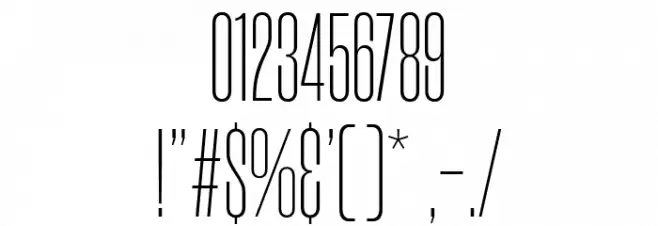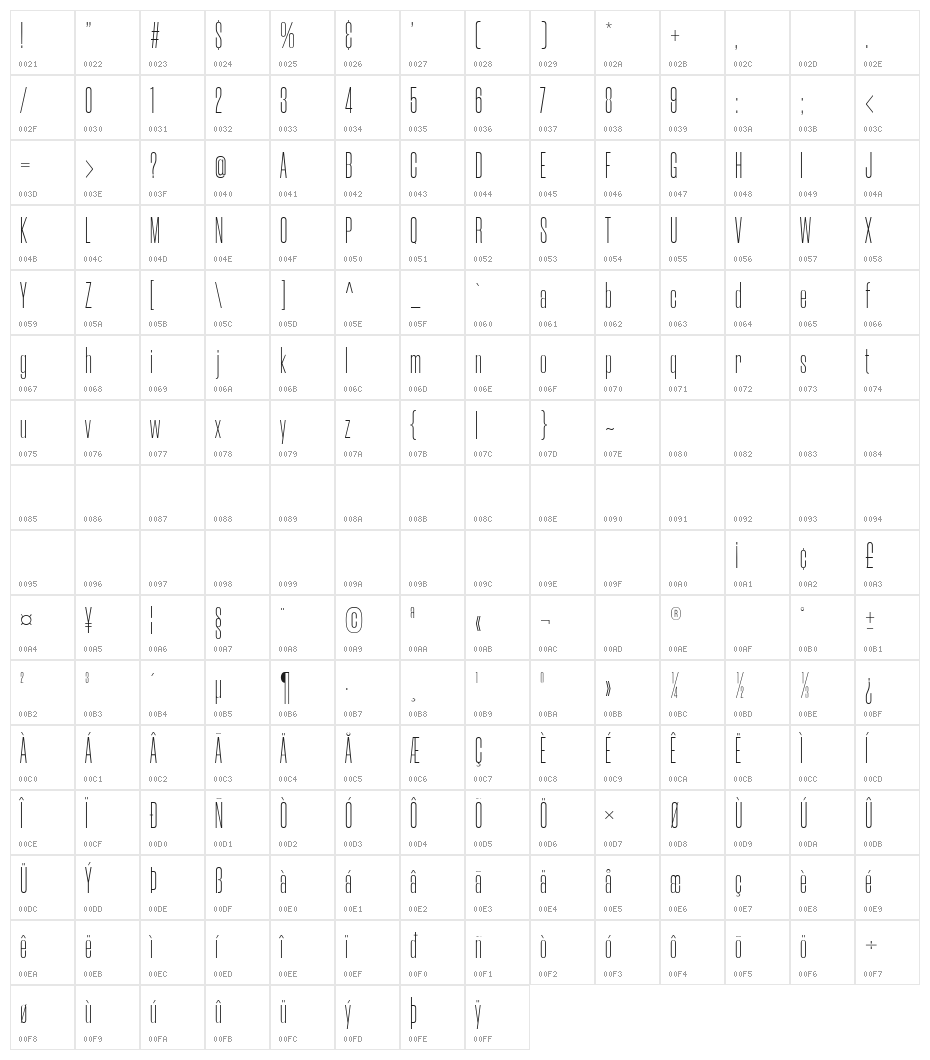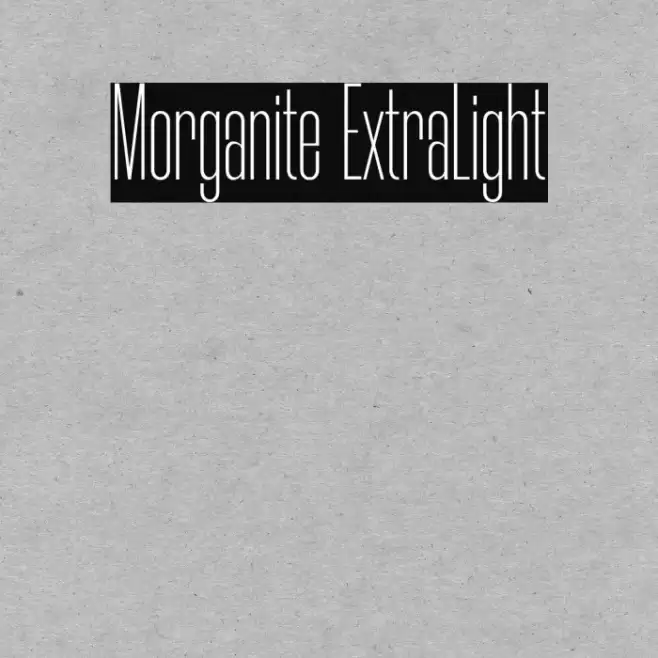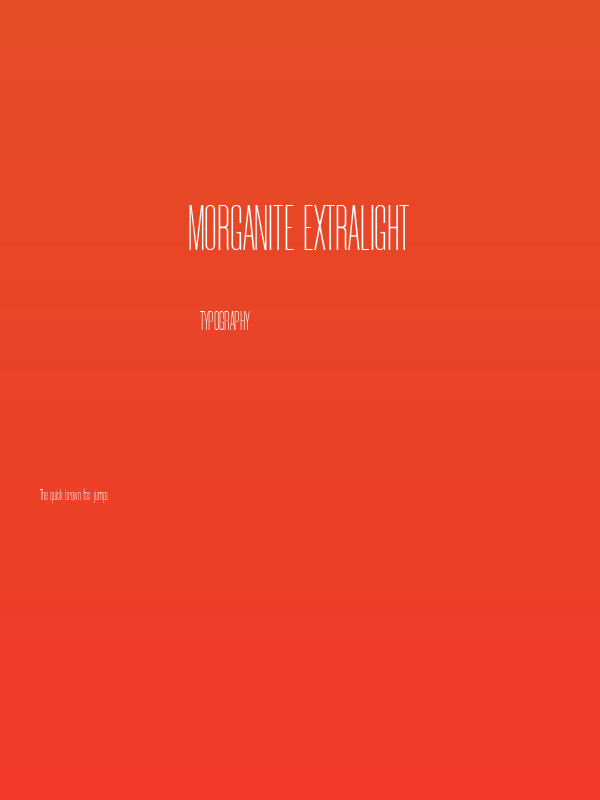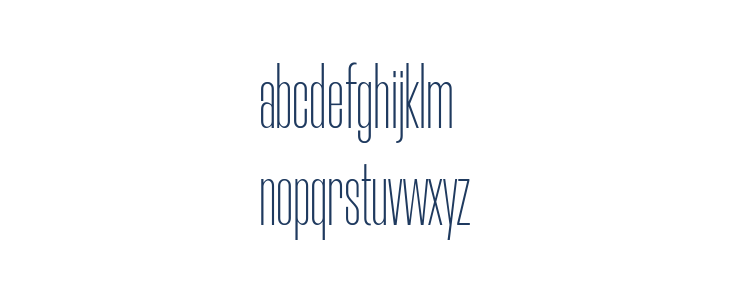
Morganite ExtraLight Font
Morganite ExtraLight Description
This font features an elegant and modern design with a tall, narrow structure. The characters are elongated, giving a sophisticated and sleek appearance. The strokes are consistent and thin, contributing to a clean and minimalistic aesthetic. The uppercase and lowercase letters maintain a uniform height, enhancing readability while adding a touch of refinement. The numbers and special characters are designed to complement the overall style, ensuring versatility across different applications. Its contemporary look makes it suitable for a variety of design projects.